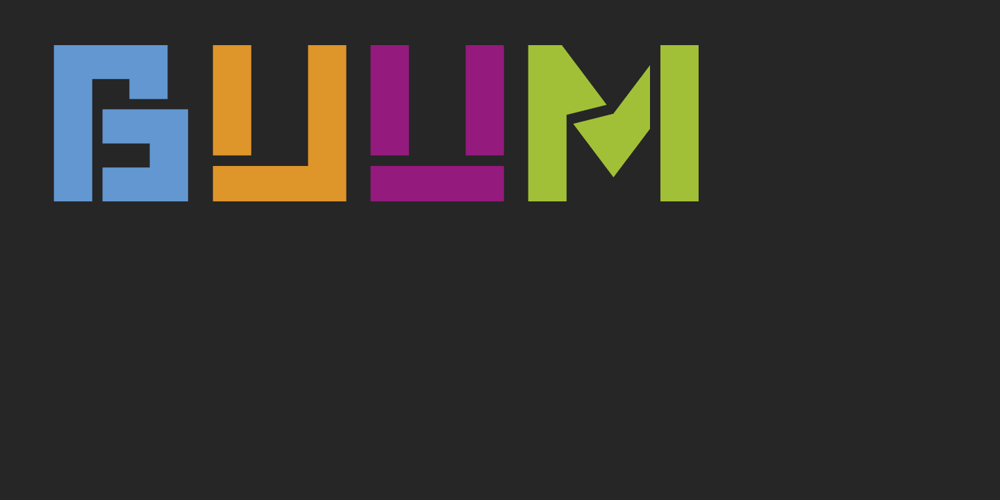
Buum Font Family was designed by Ondrej Chory and published by Ondrej Chory. Buum contains 1 styles and family package options. The Buum typeface evolved from the explosive lettering originally designed as part of a house style for an interactive science centre for kids. Beside its usual application as a strong display font in print and on screen, the bold angular shapes of glyphs are adapted for negative machine- or laser-cutting into structural materials such as iron sheets, plywood, or stone … and for creating tactile expressive surfaces and 3D objects. This pictogrammic and dazzling font remotely echoes the morphology of the lettering of futurism and constructivism, when avant-garde typography was once an exciting adventure. It is a lettering building kit with a number of stylistic alternatives of glyphs that enable a user to shape the same word differently each time. Buum is recommended by nine out of ten old school futurists, favored by steampunk CNC operators and respected by the majority of infantile anarchists.